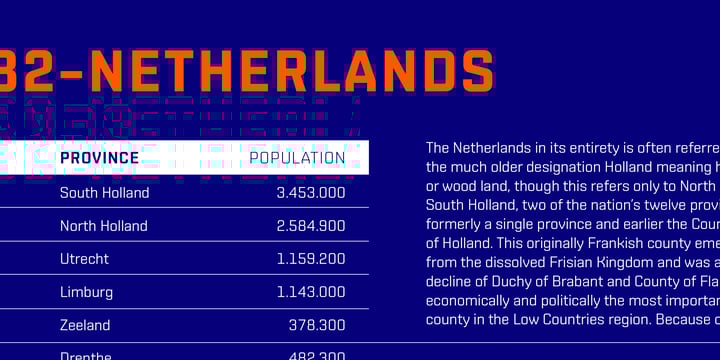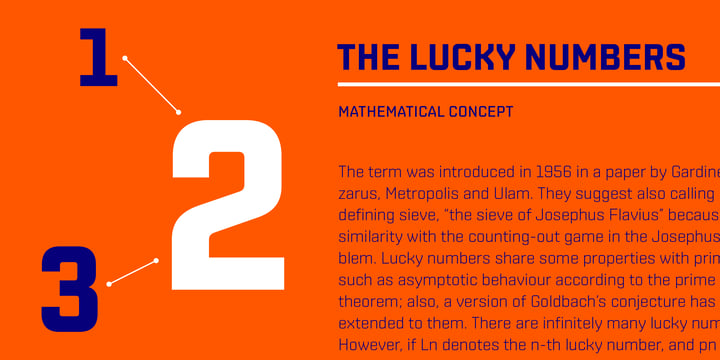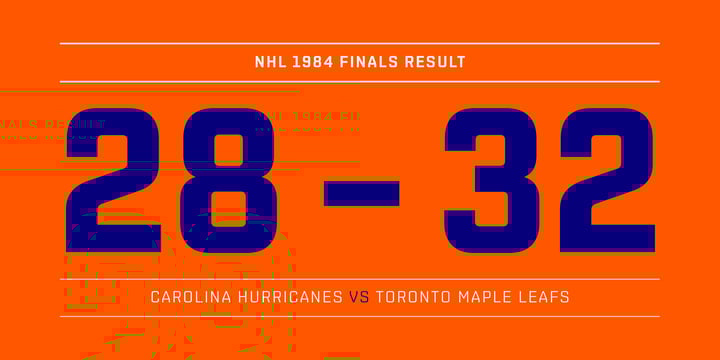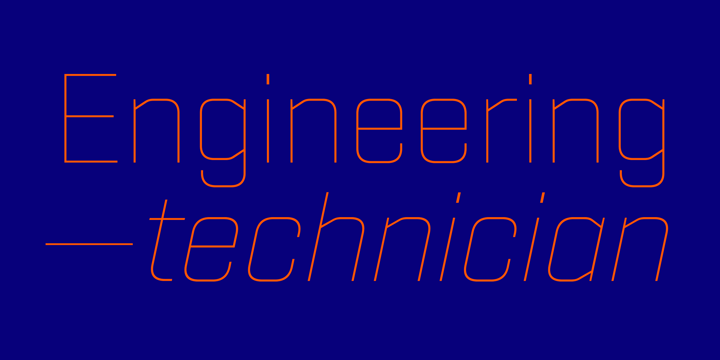
Shentox
by Emtype Foundry
The Shentox Font Family was designed by Eduardo Manso and published by Emtype Foundry. Shentox contains 14 styles and family package options. More about this family
During a visit to London in 2008 I fell in love with the square font used on the British car number plates. I was immediately inspired to start working on this font and have been developing it intermittently ever since. Several more trips to London and the project evolved before it finally took off and became Shentox. Despite the starting point being inspired by simple, everyday car plates, the font soon evolved into something fine and very rich in detail. Even though the square genre is very restrictive, Shentox is a highly legible contemporary font with a full range of weights, useable not only as a display family for headlines and posters, but as a distinct, clean font family for branding and general editorial use (Especially magazines). It has been carefully drawn paying extra attention to the details, high end finishes that makes Shentox a safe font for use in large scale work. For example, the curves of every individual corner have been adjusted character by character to avoid the common problems encountered with square fonts (Eg. darker corners between weights or a visually inconsistent radius between the Upper and Lowercases as a result of copy/paste). Shentox italic, which has a 12 degree slant, has been corrected to avoid distortion when slanted. The radius of the upper-right and lower-left corners are more pronounced, giving it a more fluid Italic feel. Shentox is available in Open Type format and includes ligatures, tabular figures, fractions, numerators, denominators, superiors and inferiors. It supports Central and Eastern European languages. This type family consists of 14 styles, 7 weights (Thin, UltraLight, Light, Regular, Medium, SemiBold and Bold) plus italics. Shentox PDF
Designers: Eduardo Manso
Foundry: Emtype Foundry
Eduardo Manso is an Argentinean type designer who has been living in Barcelona since 2000. Before establishing his own foundry, he published numerous fonts through T-26, ITC Fonts, Bitstream, and Linotype. He has designed custom typefaces for clients worldwide, such as General Motors, ESPN, Puma, The Sunday Times of London, the Munich Airport, or the Gaudí house 'La Pedrera' in Barcelona. Among other awards, he has received the 'Certificate of Excellence in Type Design' from the Type Directors Club of New York three times. He currently teaches typography classes at several schools in Barcelona and actively designs new typefaces. He has been a member of the Alliance Graphique Internationale (AGI) since 2010. For more info visit https://emtype.net